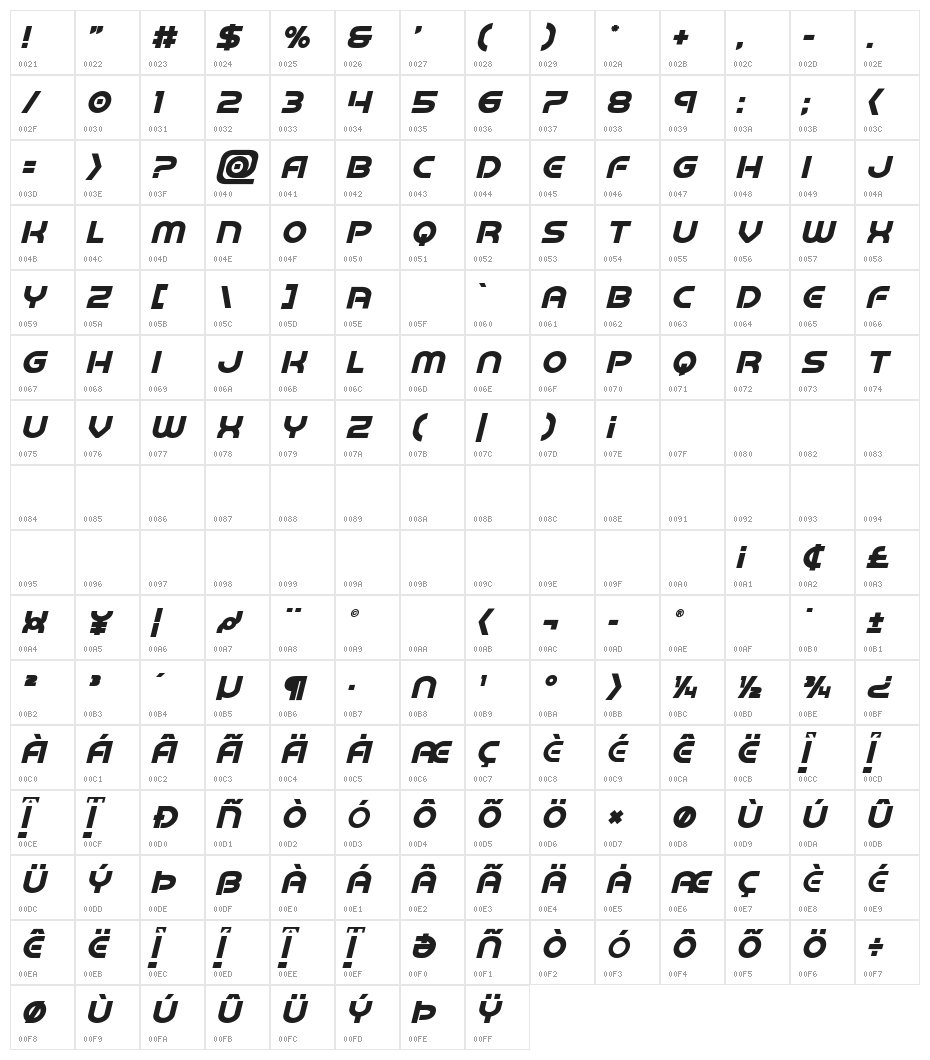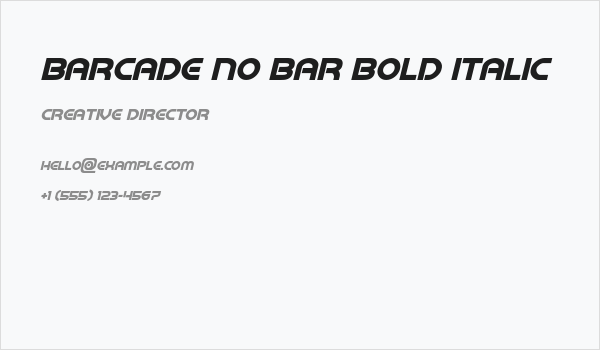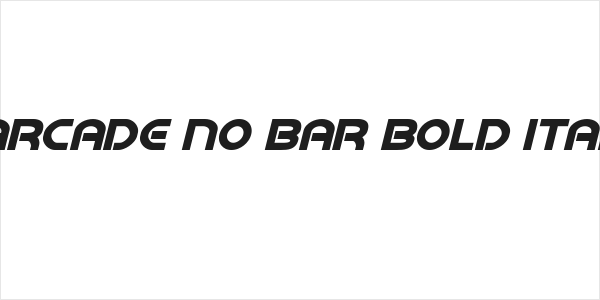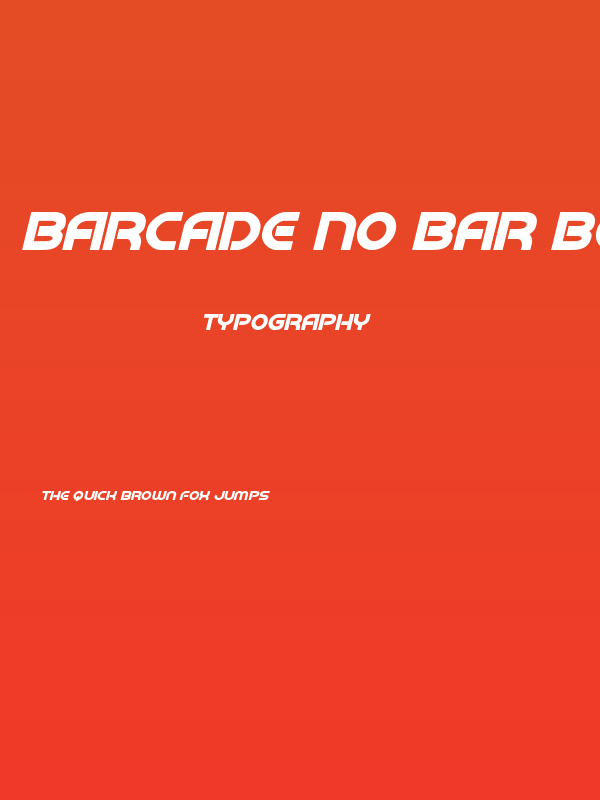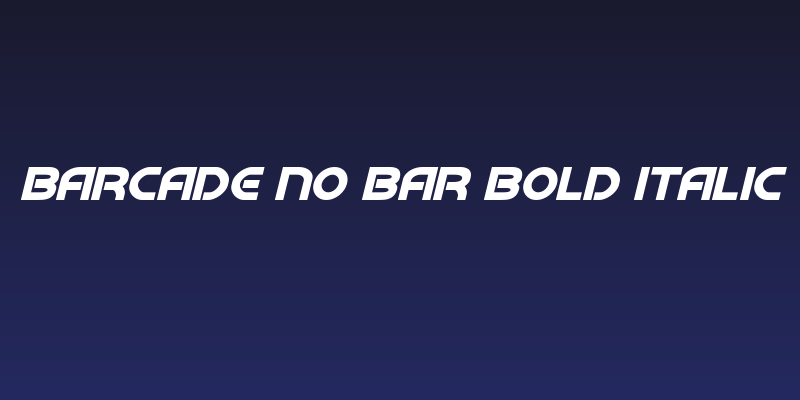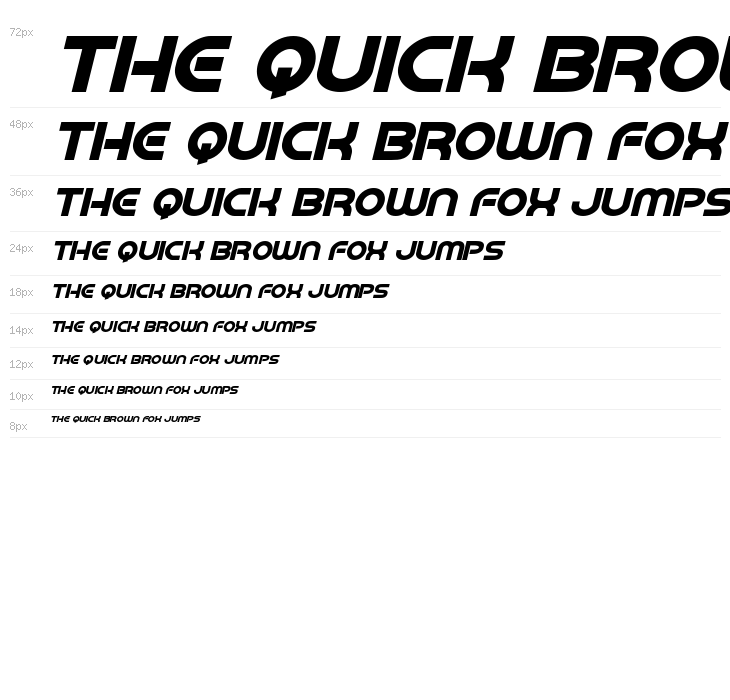
Barcade No Bar Bold Italic Font
Barcade No Bar Bold Italic Description
This font features a bold and italicized style with a modern, futuristic flair. The characters are designed with a forward-leaning slant, giving them a dynamic and energetic appearance. The strokes are thick and consistent, contributing to a strong visual impact. The font includes uppercase and lowercase letters, numbers, and a variety of special characters. The design is clean and geometric, with sharp angles and smooth curves that enhance its contemporary look. The spacing between characters is tight, which adds to the compact and cohesive feel of the text.
| Use Case | Logos, Headlines |
| Proposed Projects | Ideal for technology branding, video game titles, sports team logos, and dynamic advertising campaigns. |